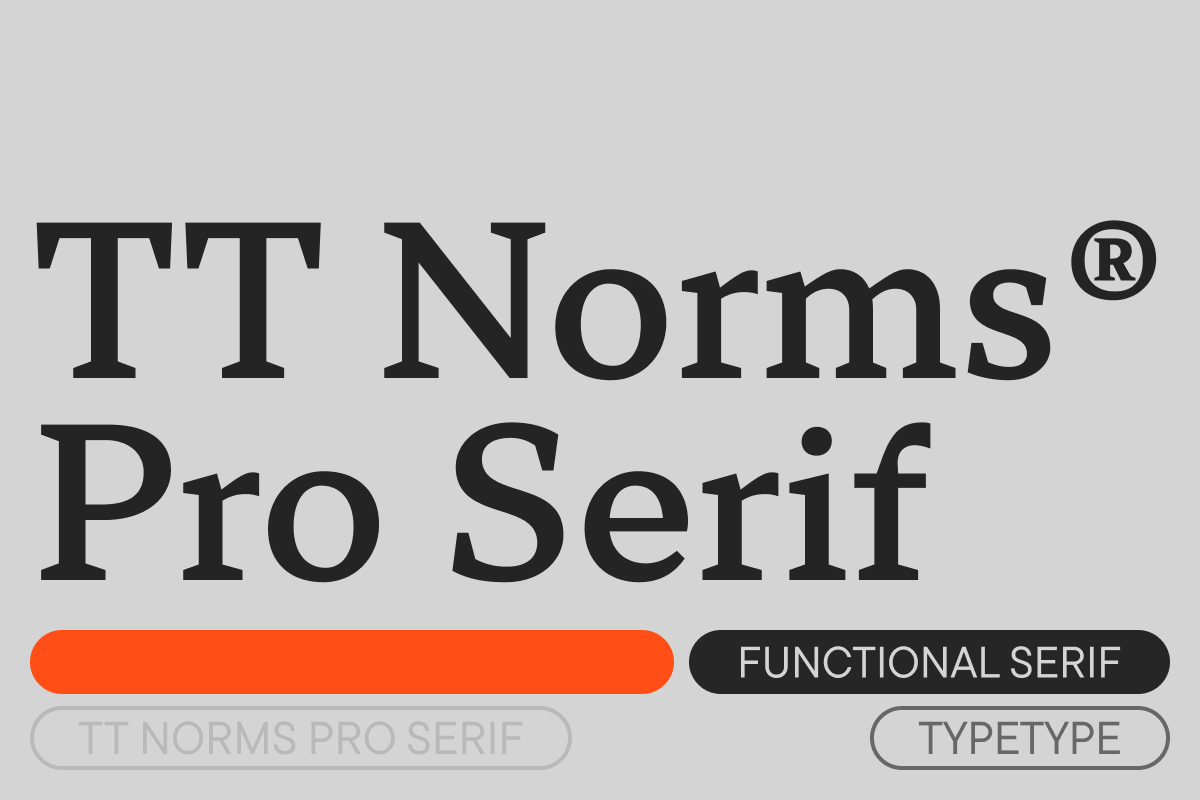
TT Norms Pro Serif Thin Italic
TT Norms® Pro Serif is a self-sufficient and elegant serif, neutral at the same time. It is easy to recognize due to its gentle proportion dynamics, open aperture, slanted oval axis, and low stroke contrast. TT Norms® Pro Serif is a functional serif based on our studio’s main bestseller—the versatile sans serif TT Norms® Pro. Together, they form an ideal font pair. Although these typefaces are made for each other, they can easily be used independently and paired with other fonts.